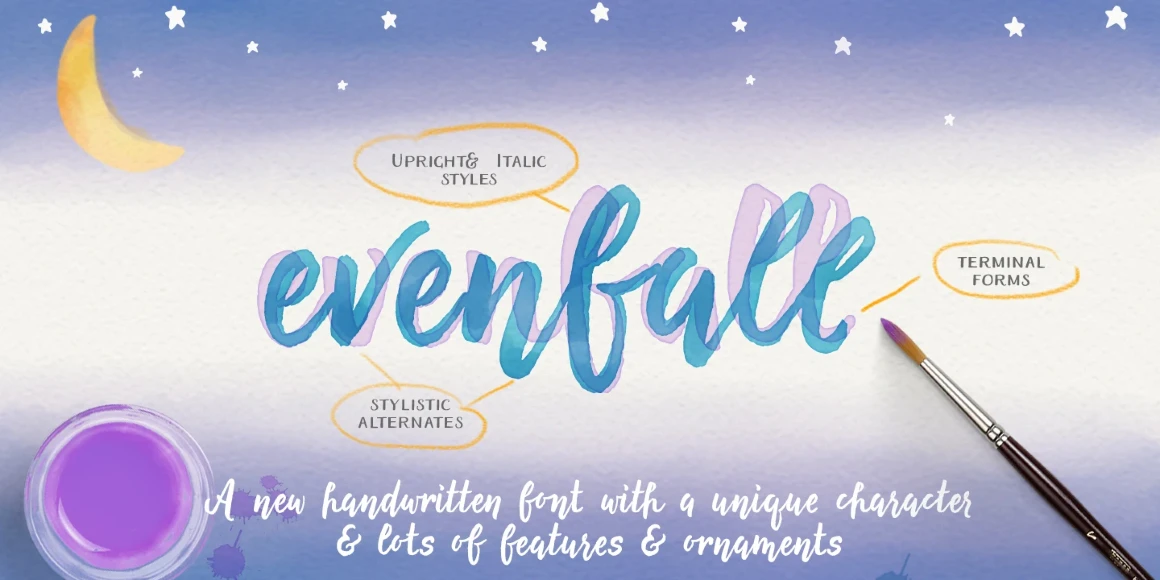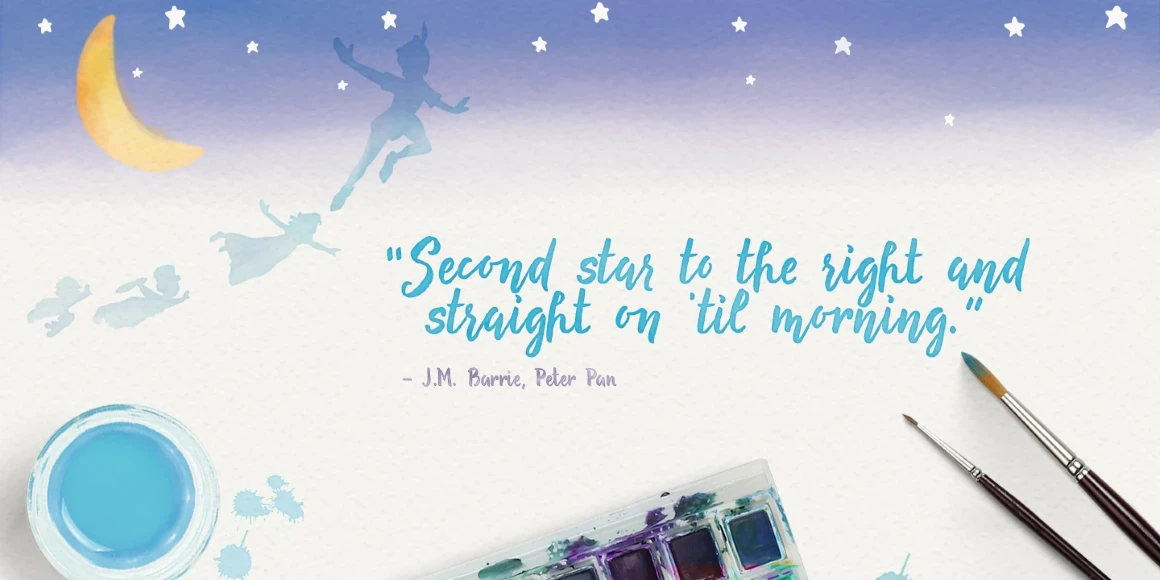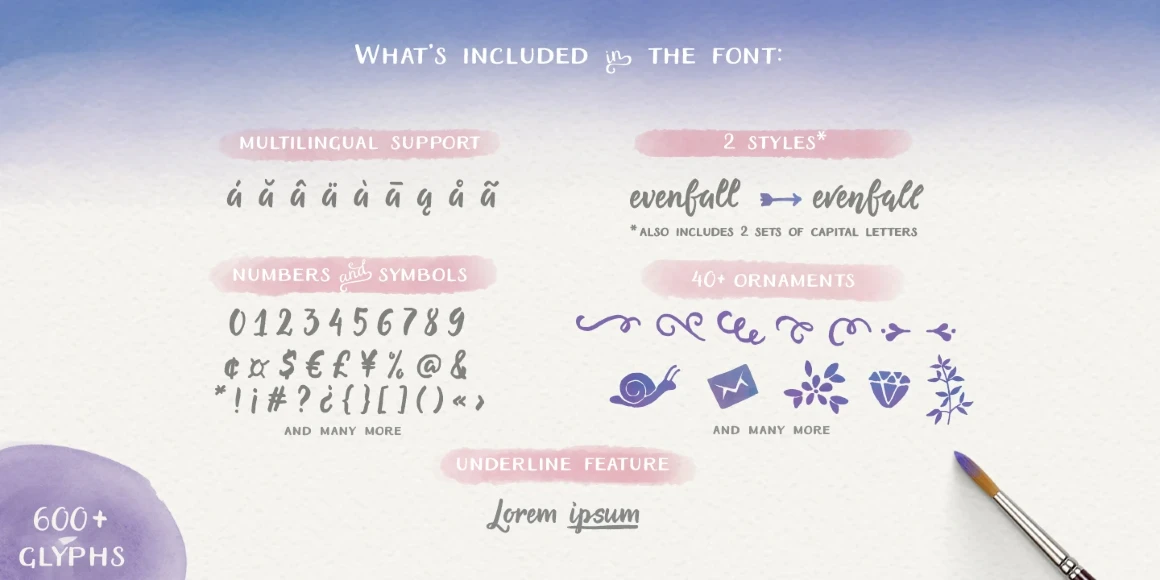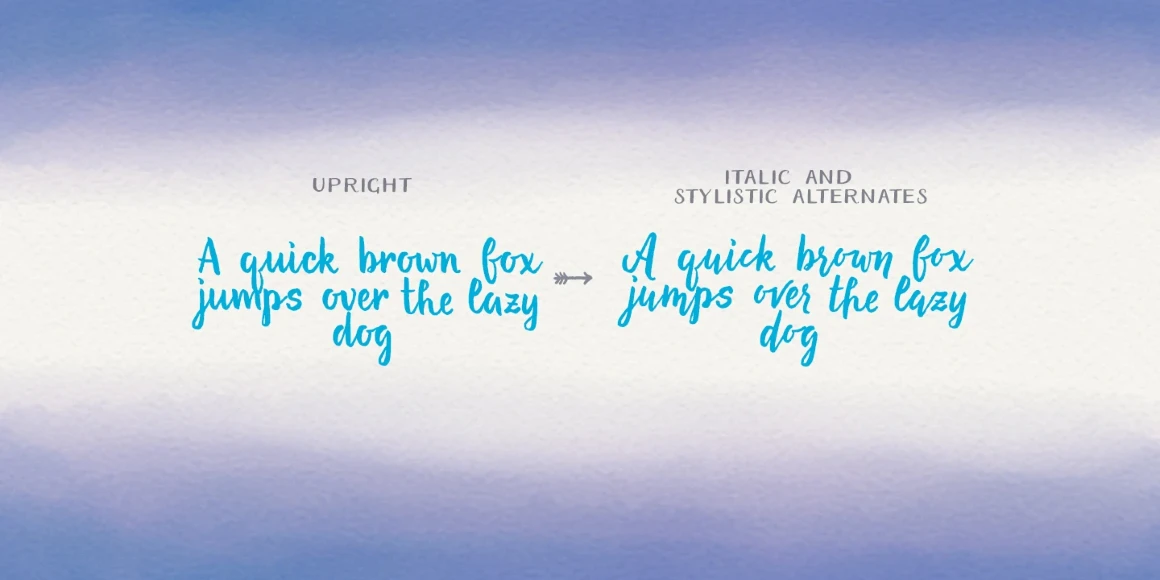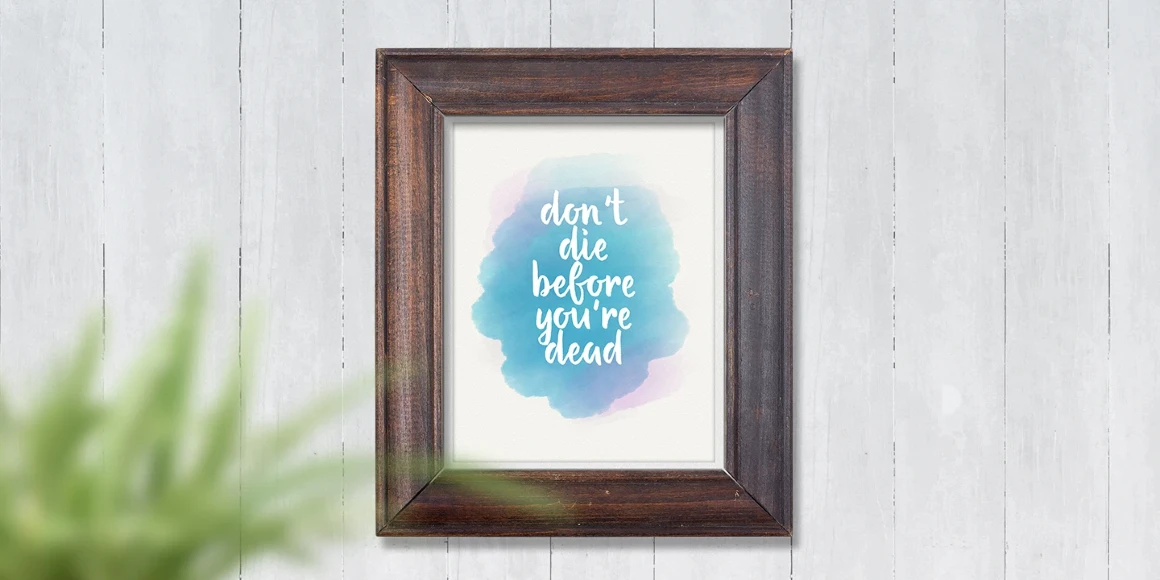
Evenfall
Evenfall Regular Oblique
Evenfall Upright
Evenfall is an exquisite handwritten typeface inspired by modern brush lettering and calligraphy. With discretionary ligatures, initial and terminal forms for all letters, ligatures, stylistic alternates, and ornaments, it is truly perfect for embellishing personal quotes, magazine covers, party invitations, advertising headlines, and product packaging.